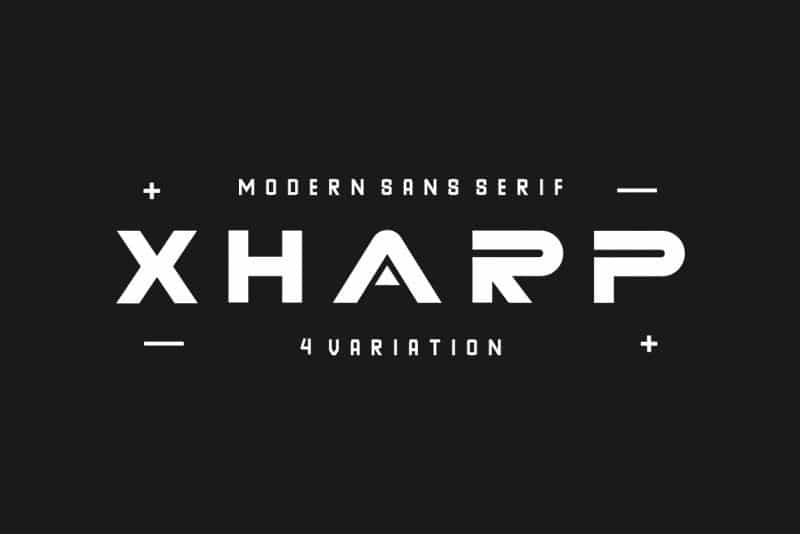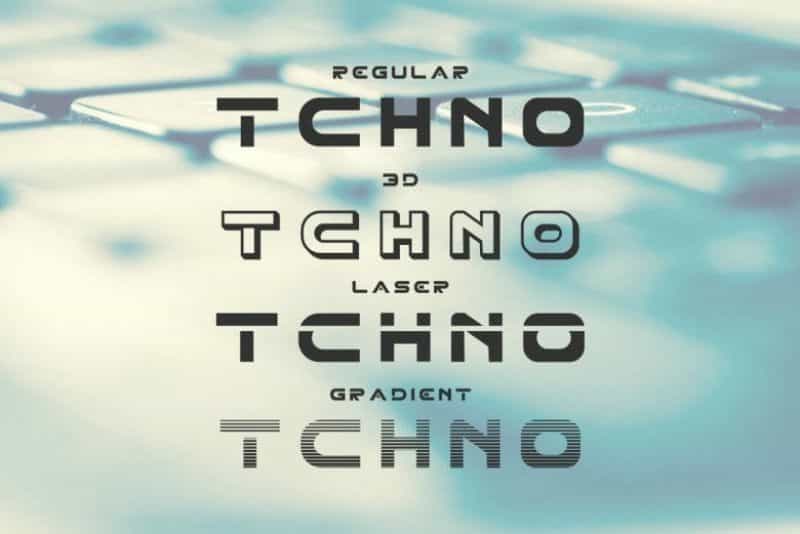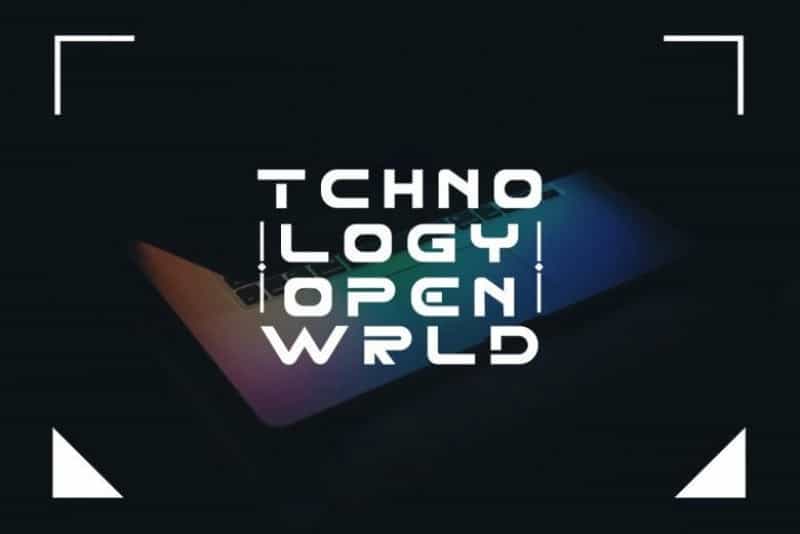
Discover XHARP Futuristic Modern Font, part of the Sans Serif collection—a versatile and unique font perfect for adding a personal touch to your projects. Download it for free and enjoy crafting designs with style, from invitations to social media posts. This font is available exclusively for personal use, giving you the freedom to create without limits. Unlock your creativity with XHARP Futuristic Modern Font today!
XHARP Font Hi Everyone! Introducing our newest font : XHARP. It has FOUR styles : The regular, 3D, gradient and laser are the four types of measurement scales. This is a new modern Futuristic font, which belongs to the Sans Serif Typefaces family.